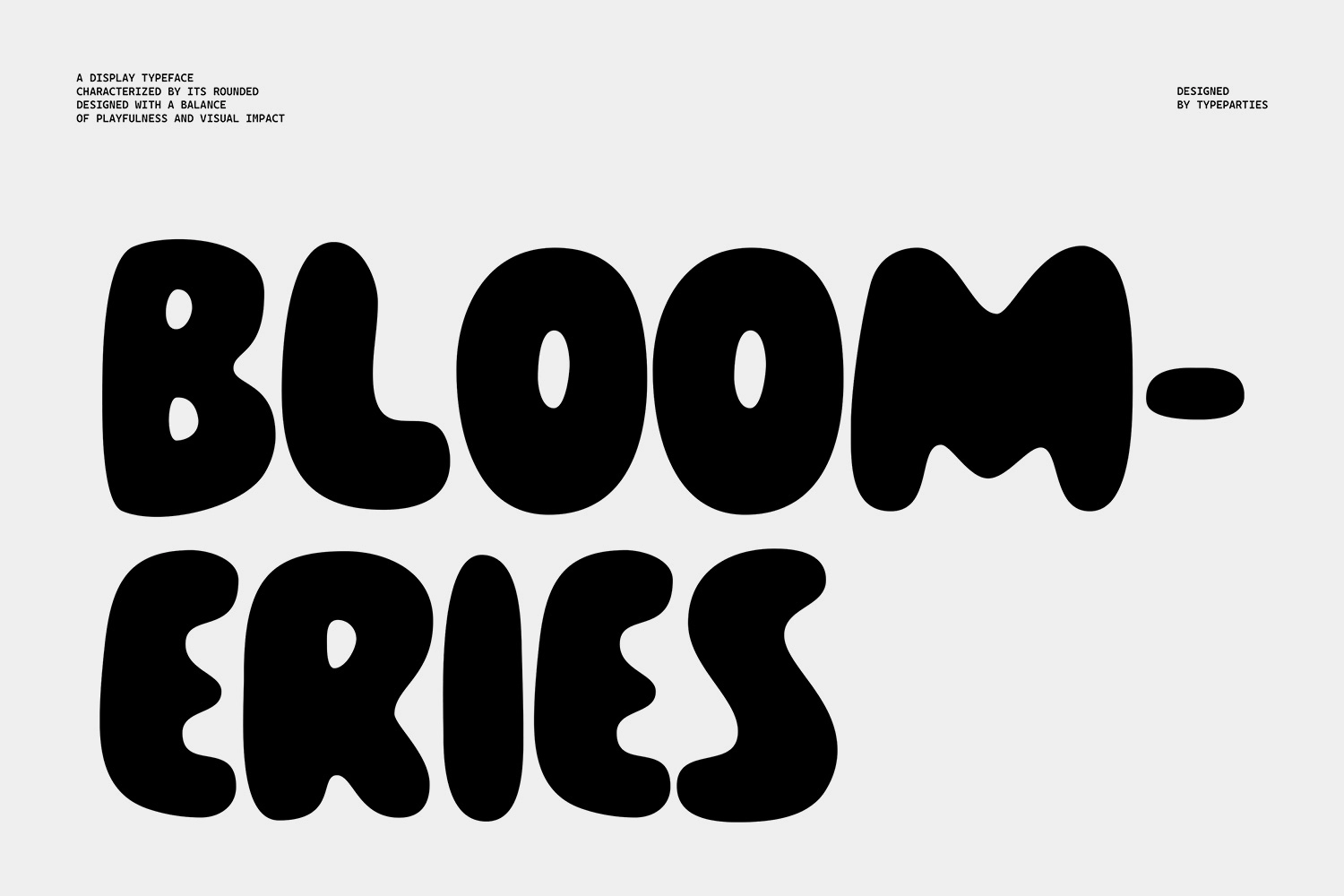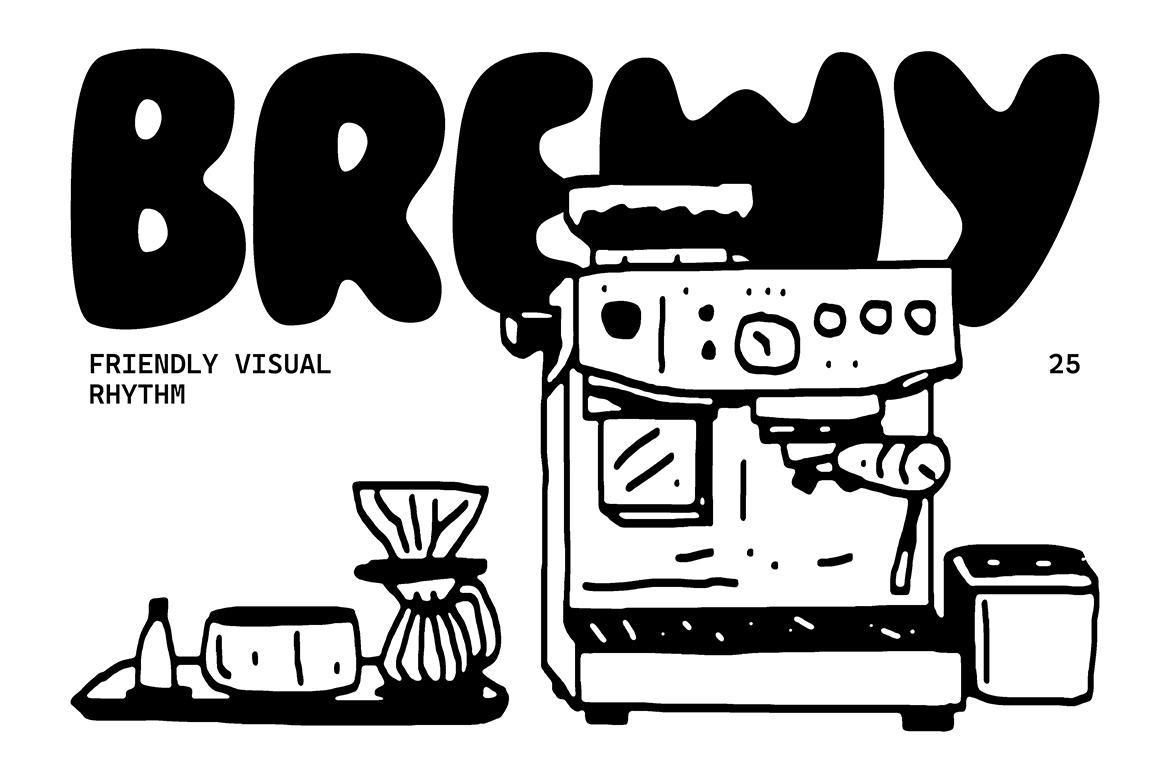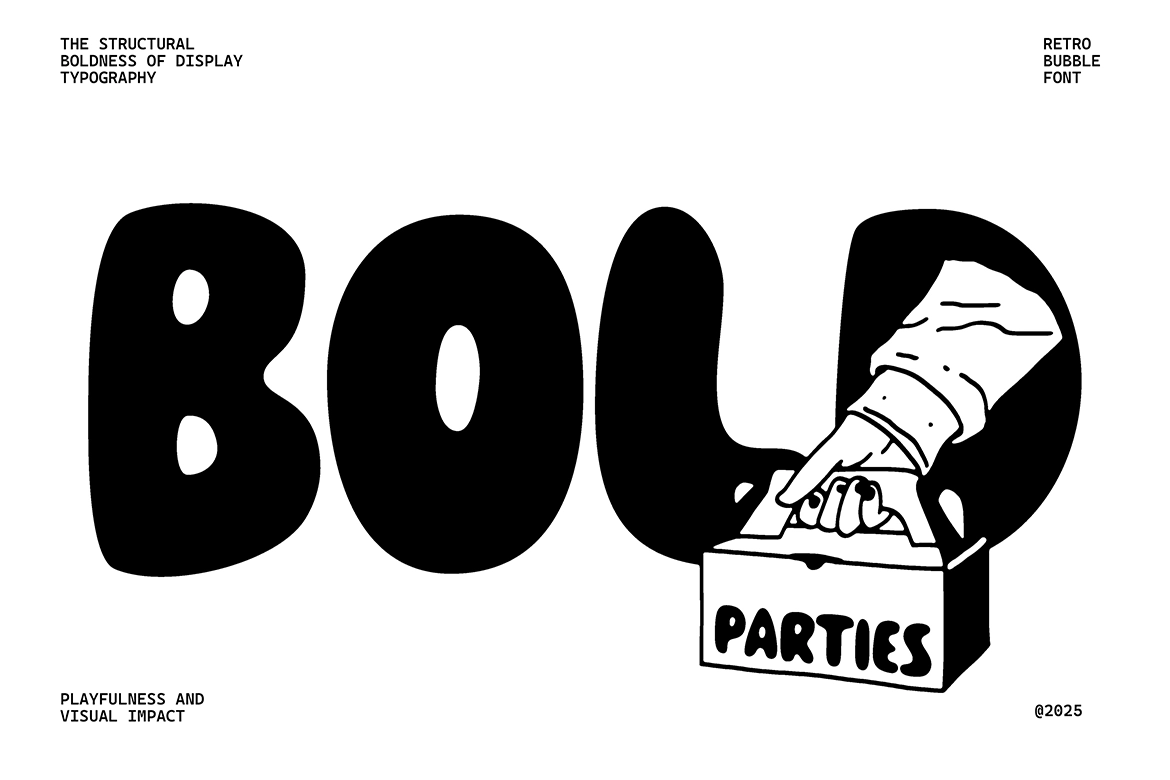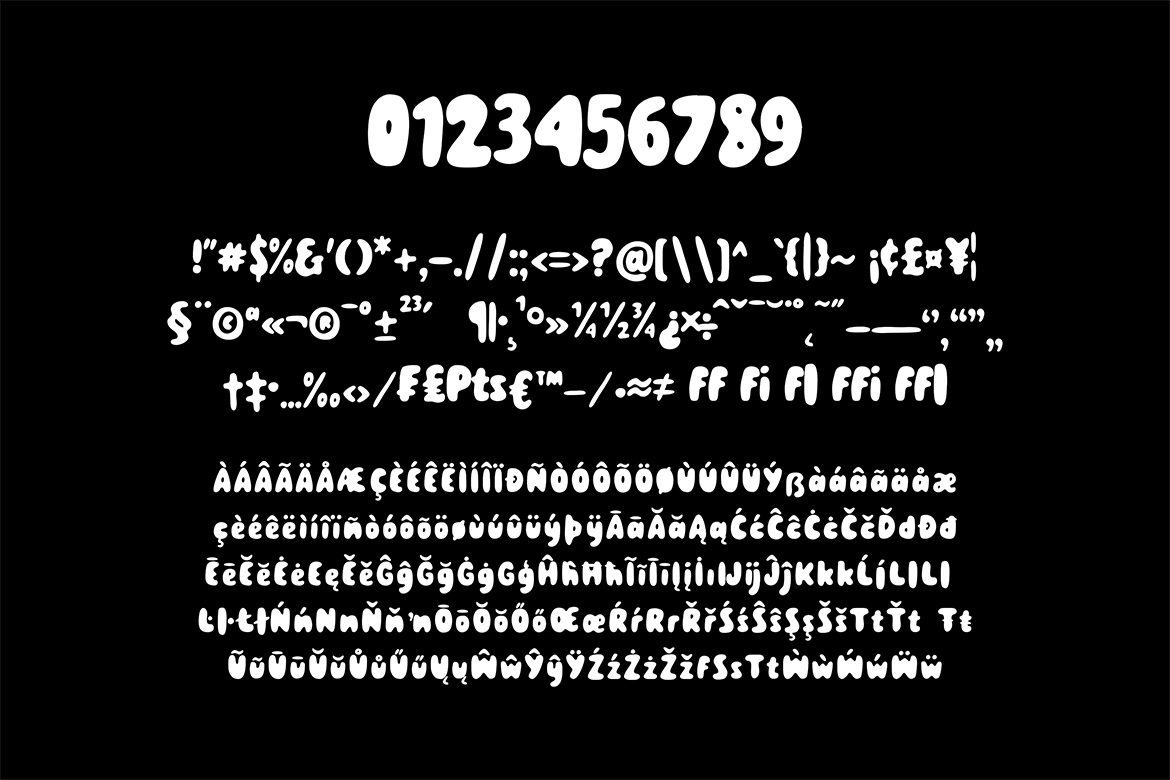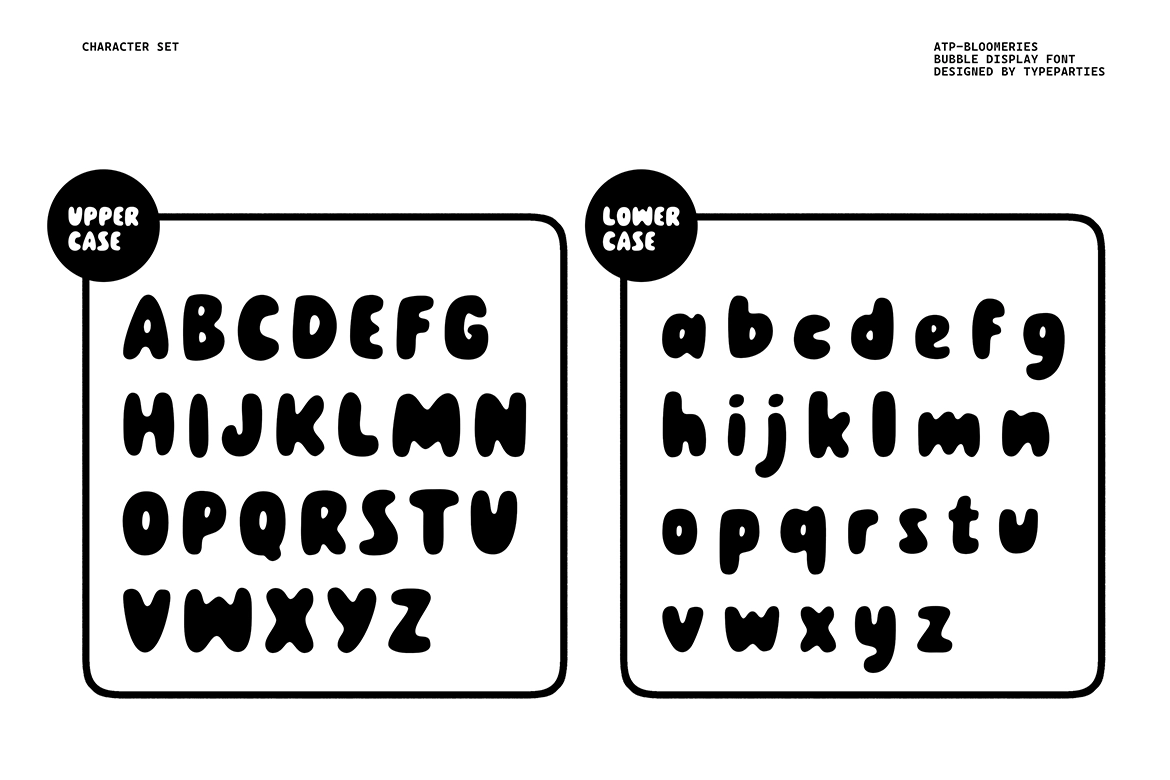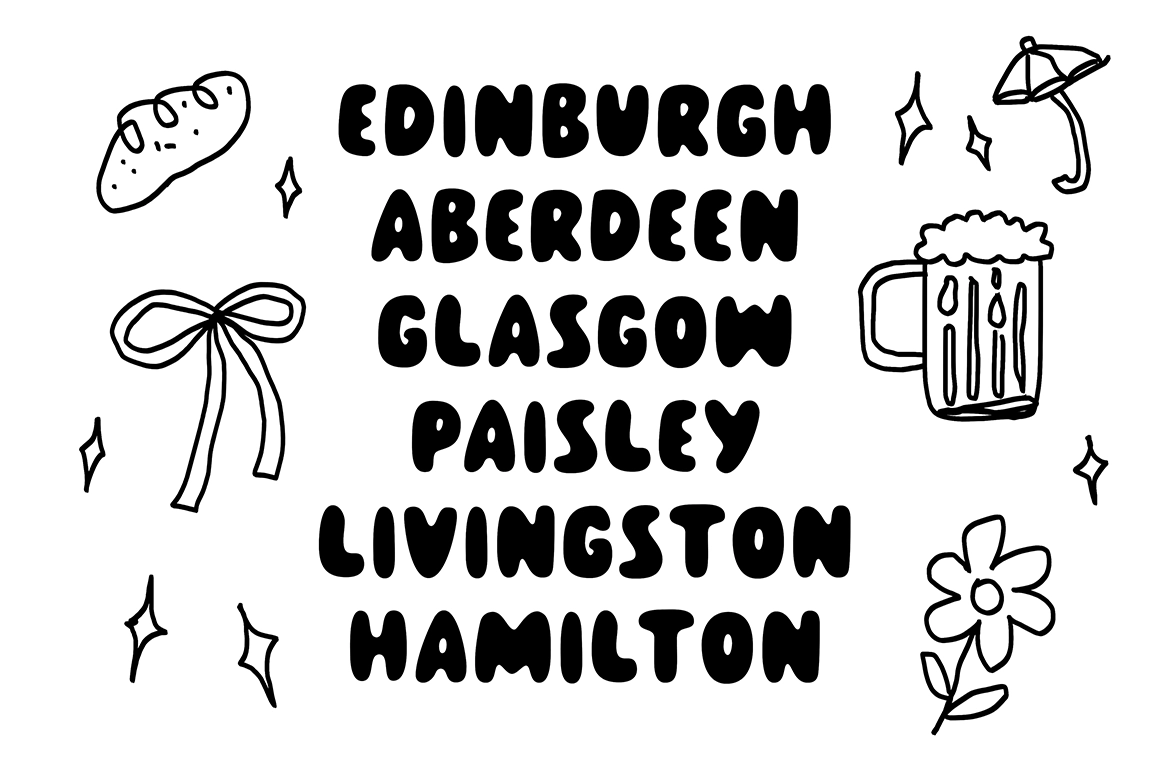
Bloomeries - Rounded Bubble Display Font
Rounded Bubble Display Font is a bold and expressive typeface defined by its chunky, bubble-shaped letterforms and smooth, wave-like curves. Inspired by retro visual culture, it channels the spirit of 1970s psychedelic posters and funky vinyl covers while maintaining the clarity and adaptability required for contemporary design.
The rounded, organic construction of each character creates a soft yet impactful rhythm, making headlines feel dynamic and approachable at the same time. Its playful proportions and fluid contours naturally draw attention without compromising legibility, even in large compositions.
Perfect for eye-catching titles, packaging design, branding projects, posters, merchandise, and social media graphics, this Rounded Bubble Display Font delivers strong visual personality with nostalgic flair. It’s especially suited for creative concepts that aim to express energy, individuality, and a bold vintage-inspired attitude with a modern twist.